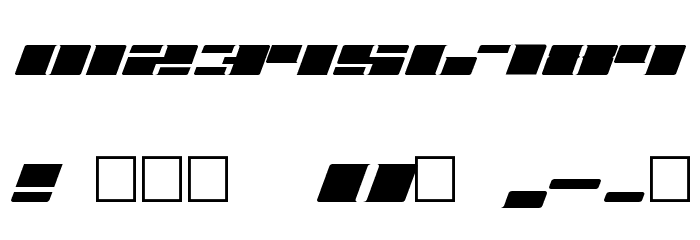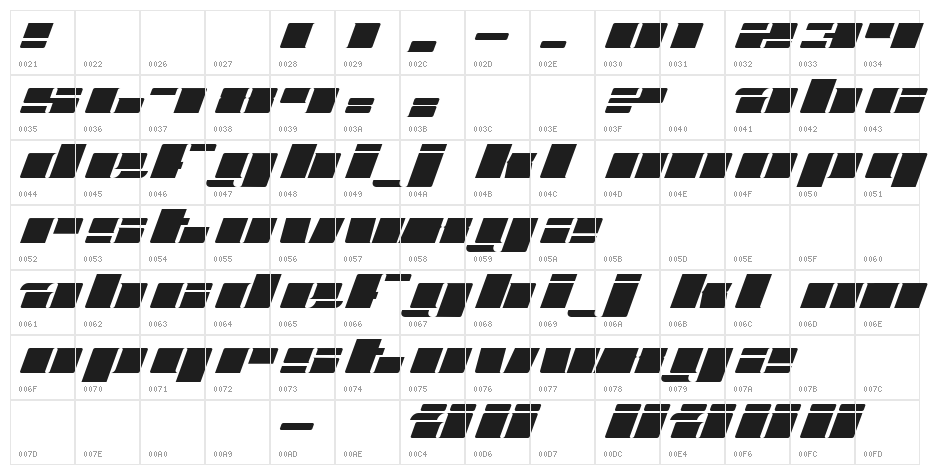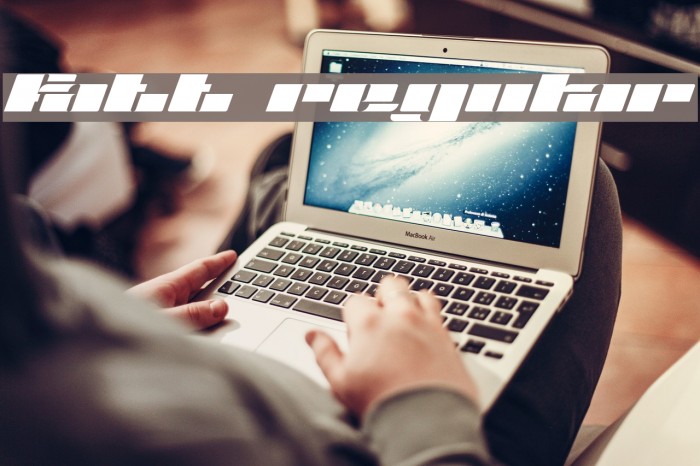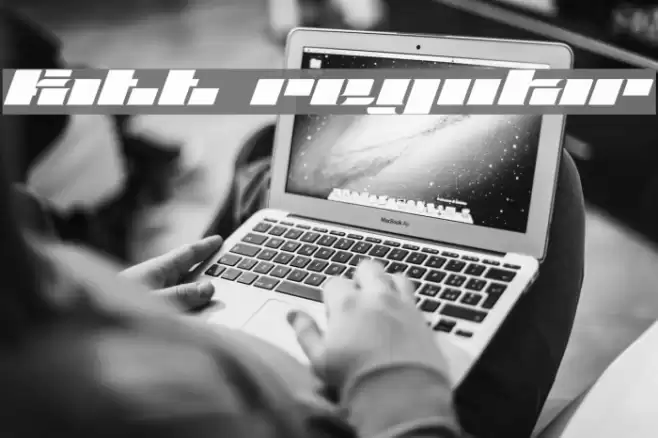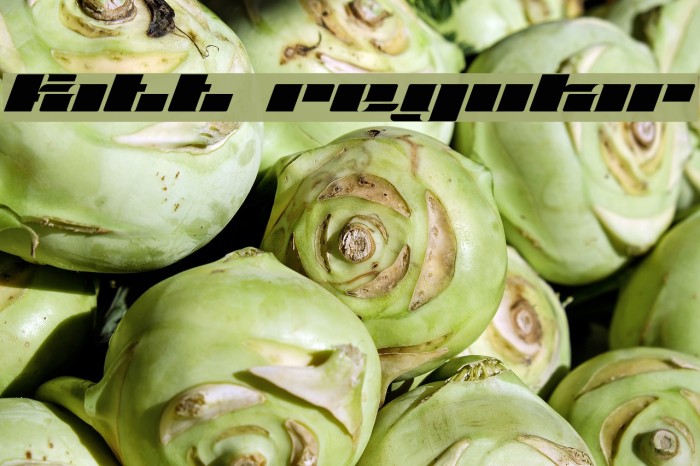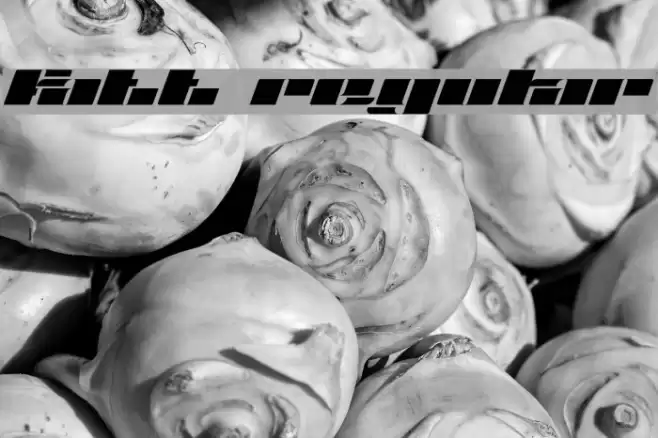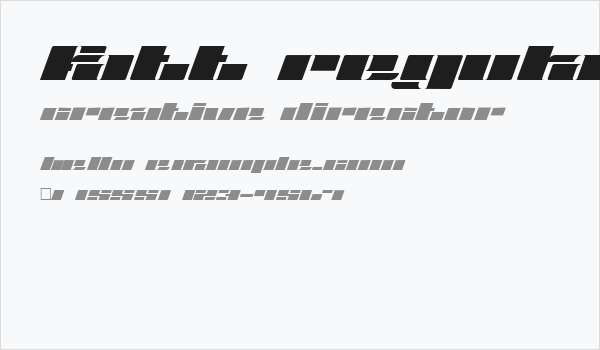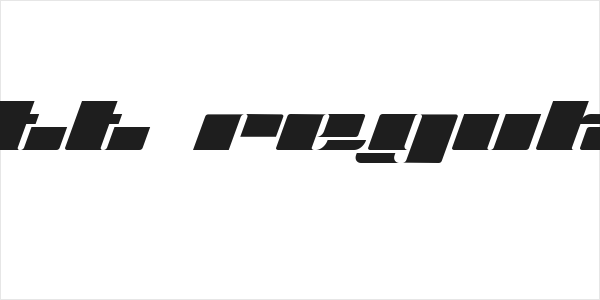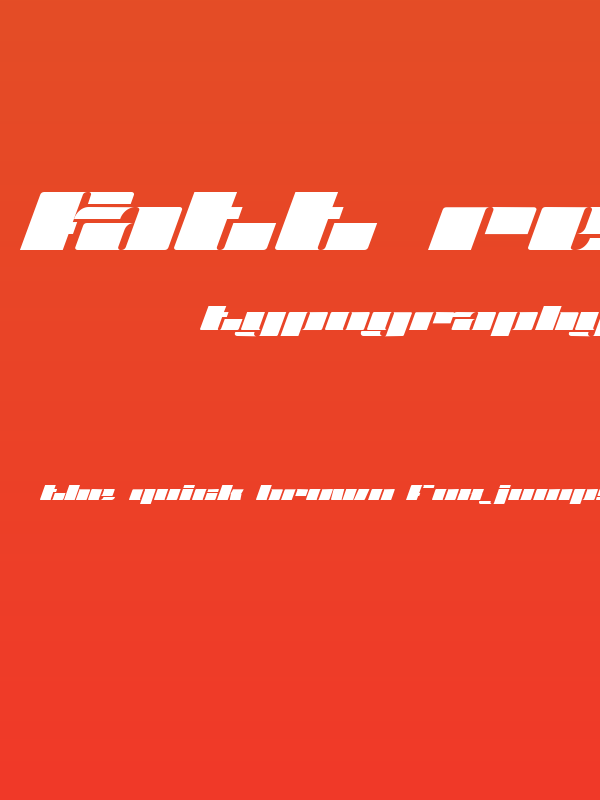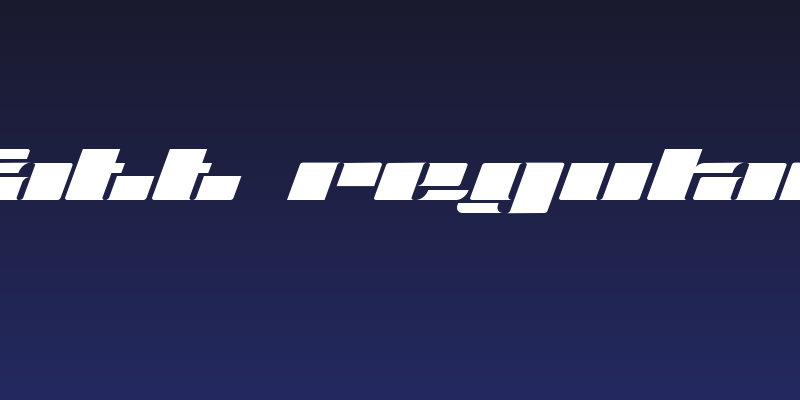
Fatt Regular Font
Fatt Regular Description
This font features a bold and angular design with a distinct geometric style. The characters are wide and blocky, with sharp edges and a futuristic appearance. The uppercase and lowercase letters maintain a consistent height, giving the font a uniform look. The numbers and special characters follow the same design principles, ensuring a cohesive appearance across all glyphs. The font's unique style makes it stand out, with a modern and edgy vibe that is perfect for attention-grabbing designs.
| Proposed Projects | Ideal for sci-fi themed projects, video game titles, posters, and branding that requires a modern and bold aesthetic. |